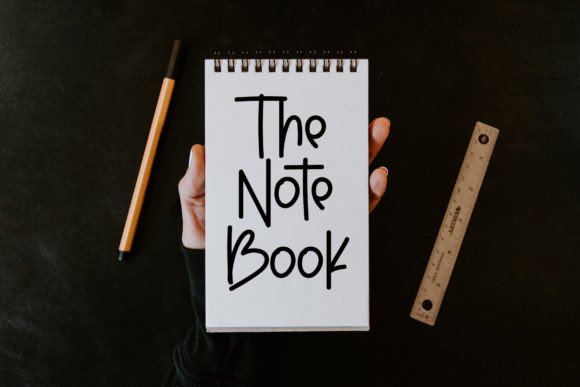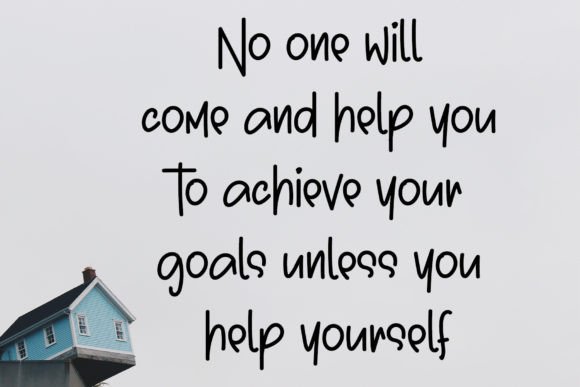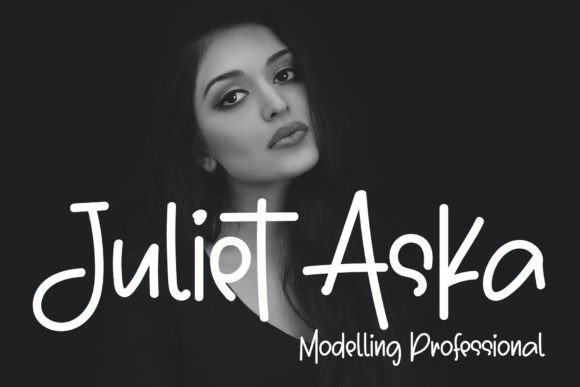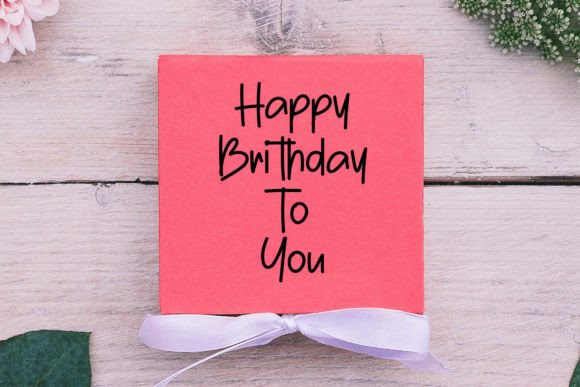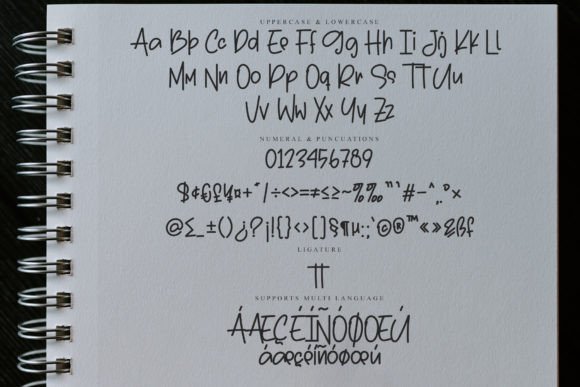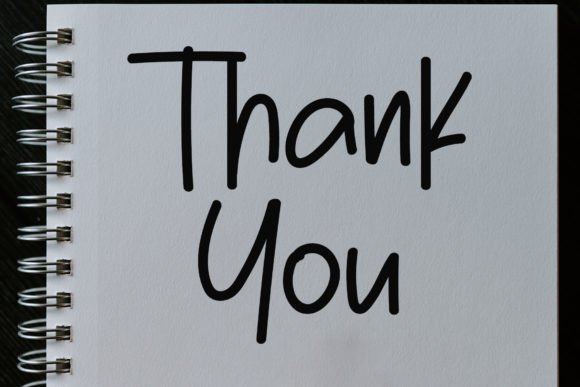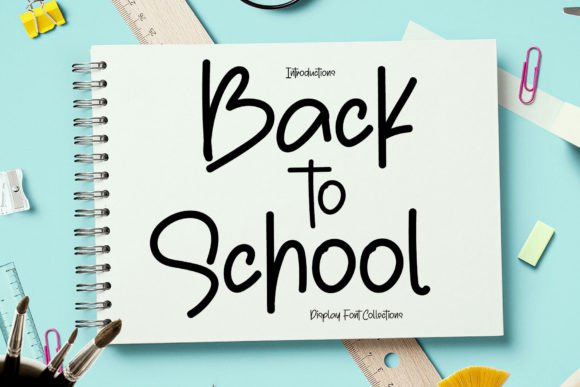
Back to School Font: Elevate Your Designs with a Beautiful Handwritten Style
As the new academic year approaches, designers and crafters are on the lookout for fresh and exciting fonts to add a personal touch to their creations. If you’re searching for a font that’s both elegant and playful, look no further than the Back to School Font. This stunning handwritten font is perfect for magazines, crafts, and any design project that requires a touch of sophistication and whimsy.
What Makes Back to School Font So Special?
The Back to School Font is a beautiful, carefully crafted handwritten font that’s designed to add a personal touch to your designs. Its unique and elegant style makes it perfect for a wide range of projects, from educational materials and magazines to crafts and DIY projects. With its smooth and flowing lines, this font is sure to capture the attention of your audience and leave a lasting impression.
Key Features of Back to School Font
• Handwritten style: The Back to School Font boasts a beautiful, handwritten style that’s perfect for adding a personal touch to your designs.
• Elegant and playful: This font combines elegance and playfulness, making it suitable for a wide range of projects, from formal to informal.
• Perfect for magazines and crafts: The Back to School Font is ideal for use in magazines, crafts, and any other project that requires a touch of sophistication and whimsy.
Why Designers and Crafters Love Back to School Font
Designers and crafters love the Back to School Font for its versatility and ease of use. Whether you’re creating educational materials, crafting invitations, or designing magazine layouts, this font is sure to elevate your designs and add a touch of personality. Its unique style makes it perfect for a wide range of projects, from formal to informal, and its smooth and flowing lines ensure that your text is always easy to read.
How to Use Back to School Font in Your Designs
• Magazine layouts: Use the Back to School Font to add a touch of elegance and sophistication to your magazine layouts.
• Crafts and DIY projects: Add a personal touch to your crafts and DIY projects with the Back to School Font.
• Educational materials: Use the Back to School Font to create engaging and informative educational materials, such as worksheets, quizzes, and activity sheets.
• Invitations and greeting cards: Add a touch of whimsy and personality to your invitations and greeting cards with the Back to School Font.
Tips and Tricks for Getting the Most Out of Back to School Font
Here are a few tips and tricks to help you get the most out of the Back to School Font:
• Experiment with different sizes and colors: Don’t be afraid to experiment with different sizes and colors to add depth and interest to your designs.
• Combine with other fonts: Combine the Back to School Font with other fonts to create unique and interesting typography.
• Use in combination with images: Use the Back to School Font in combination with images to add a touch of personality to your designs.